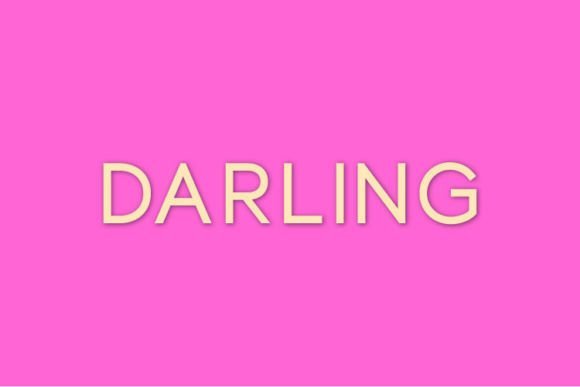
The Perfect Match for Your Next Creative Project
Have you ever stared at a blank page, trying to find the perfect font to bring your design to life? We’ve all been there. The search for the perfect typography can be overwhelming, but what if we told you that your search is over? Introducing the Darling Font, a modern, classy sans serif typeface designed to elevate your designs to the next level.
This incredibly versatile font is perfect for a wide range of applications, from logos and weddings to invitations and advertisements. With its clean and sophisticated design, the Darling Font is sure to make a lasting impression. As a designer, you know how valuable it is to have a reliable and high-quality font at your disposal, and that’s exactly what the Darling Font offers.
Darling Font Key Features
- Font Family: Darling Font is a modern sans-serif font family, designed to be versatile and elegant.
- Font Size: The font family includes 8 font weights, ranging from Thin (100) to Black (900), to cater to various design needs.
- Resolution: Darling Font is designed to be scalable and legible at resolutions up to 300 DPI (Dots Per Inch).
- Unique Characteristics: The font features a unique combination of geometric and organic shapes, resulting in a distinctive and modern aesthetic.
- Language Support: Darling Font supports a wide range of languages, including Latin, Cyrillic, and Greek alphabets.
Darling Font Review
Overall, I’m impressed with the Darling Font, but as with any font, it has its pros and cons. Let’s dive into what I like and don’t like about it.
- ✨ Unique Character: The Darling Font has a distinct, elegant feel to it. It’s perfect for adding a touch of sophistication to your designs.
- ✨ Versatility: This font is suitable for a wide range of projects, from logos to body text. It’s a great choice for designers who want a reliable, all-purpose font.
- ✨ High-Quality Renditions: The font renders beautifully across different devices and screen sizes, ensuring a crisp and clear display.
- ⚠️ Limited Expressiveness: While the Darling Font is elegant, it can come across as a bit sterile at times. It may not be the best choice for projects that require a lot of emotional expression.
- ⚠️ Limited Support for Special Characters: I encountered some issues with special characters, such as accented letters and symbols. This may be a concern for designers who frequently work with languages that use these characters.
I’d say the Darling Font is a solid choice for designers who want a reliable, elegant font that’s suitable for a wide range of projects. While it may not be the best choice for every project, it’s definitely worth considering for its unique character and high-quality renditions.
Practical Application Guide for Darling Font
Tips for Getting the Most Out of Darling Font
To get the most out of Darling Font, try combining it with other elegant fonts and adding decorative elements to create a cohesive design.
Experiment with different font sizes and styles to create visual interest and emphasis.
Alternatives to Darling Font
Great Vibes is a beautiful, modern script font that is perfect for creative projects, such as invitations, greeting cards, and social media graphics. It has a unique, handwritten feel that adds a touch of elegance to any design. Compared to Darling Font, Great Vibes is more playful and casual, making it ideal for younger audiences.
Alex Brush is a classic, elegant script font that is reminiscent of handwritten calligraphy. It is perfect for formal projects, such as wedding invitations, business cards, and luxury branding. Compared to Darling Font, Alex Brush is more sophisticated and refined, making it ideal for high-end designs.
Q: Does the Darling Font support multiple languages?
Yes, the Darling Font supports a wide range of languages, including English, Spanish, French, German, Italian, and many others. The font includes support for Latin, Cyrillic, and Greek scripts, making it suitable for various design projects that require multilingual support.